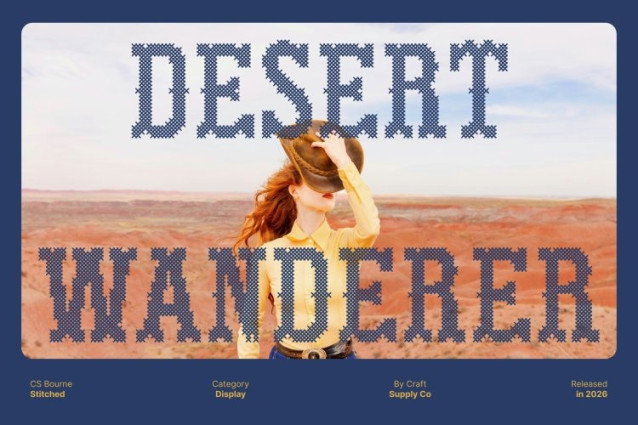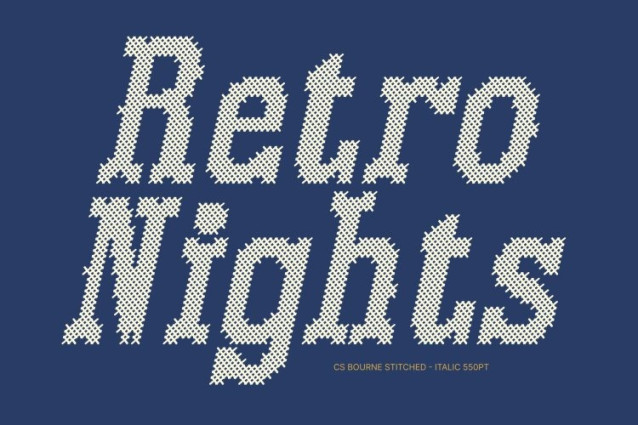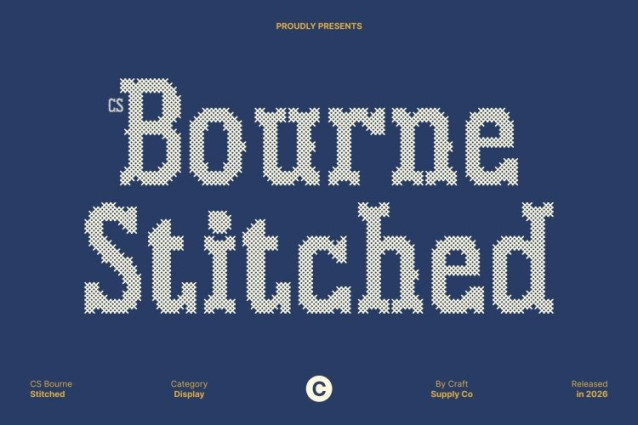
CS Bourne Stitched Font
CS Bourne Stitched Font – is a captivating Tuscan-style display font that blends ornate decorative elements with the nostalgic charm of vintage typography. Known for its prominent serifs and embellished letterforms, this font evokes the rich craftsmanship of classic sign painting and historical design.
Ornamental Forms with Embossed Stitch Detail
The distinctive Tuscan structure of this font features dramatic contrasts between thick and thin strokes, complemented by elegant curves and decorative flourishes. A unique cross-shaped stitch pattern overlays each letter, creating an embossed, fabric-like texture that enhances depth and visual interest. This stitched detailing adds a classic, nostalgic, relaxed, and warm impression while preserving the ornate beauty of the Tuscan style.
Vintage Personality with Artistic Energy
With its expressive shapes and decorative rhythm, this font captures the spirit of vintage signage and retro design traditions. The combination of elaborate Tuscan forms and tactile stitched texture results in a font that feels both playful and sophisticated, delivering a visually rich typographic experience.
Perfect for Retro Branding and Decorative Design
This is ideal for retro posters, packaging, branding, signage, editorial titles, and creative promotional materials. Its fusion of Tuscan elegance and stitched craftsmanship creates a distinctive typographic identity that stands out with charm, personality, and timeless vintage appeal.